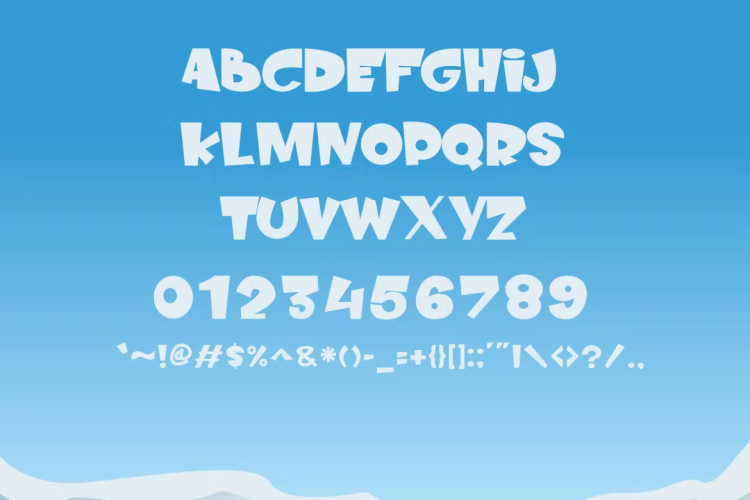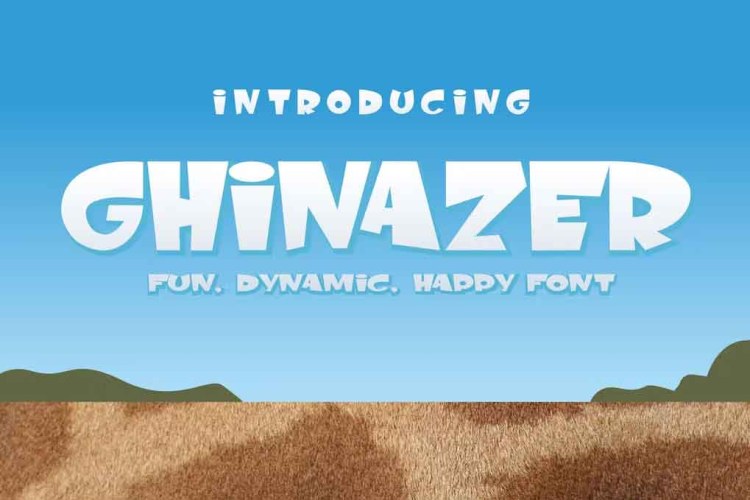
Ghinazer Font
Proudly present our new product Ghinazer font
Ghinazer font is a modern and authentic font. Perfect for both professional and branding needs of a product. This font is suitable for any branding project like quotes, logo, blog header, poster, banding, letter, invitation, stationery, etc… Designed as a versatile and flexible that can be used on a range of projects and mediums.outstanding in a wide range of contexts.
Where Ghinazer Font works best
Ghinazer Font keeps its shape at 14 and 16 pixels, which is where interface text actually lives. Numbers and capitals stay distinguishable in tables.
Presentations are read at a distance; a clean sans with a strong bold is the safest hierarchy you can build in a hurry.
Simple letterforms survive angles, glare and movement, so Ghinazer Font suits door signs, menus boards and exhibition panels.
What kind of work does Ghinazer Font suit?
It sits in the Sans Serif Fonts group and reads as branding, modern, professional, sans serif. That makes it a candidate wherever those qualities help: headings, packaging, social graphics and brand work. Set it at the size you plan to use before deciding.